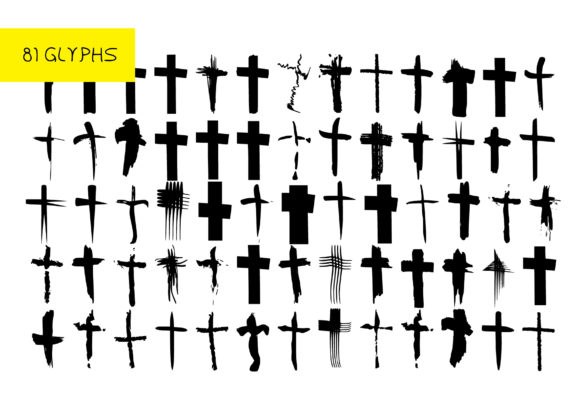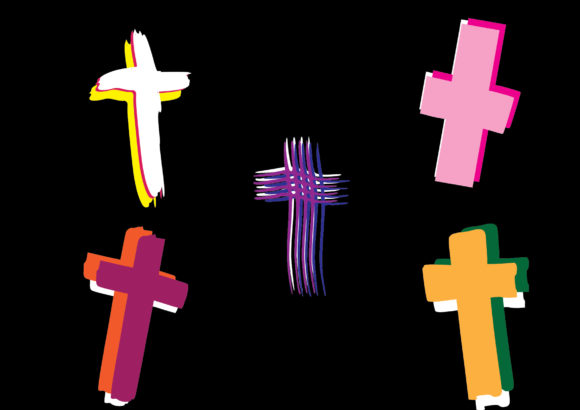
BM Graphics – Christian Crosses Font: A Stunning Collection of Dingbats for Designers and Crafters
Are you a designer or crafter looking for a unique and inspiring way to add a touch of faith and spirituality to your projects? Look no further than the BM Graphics – Christian Crosses Font, a stunning dingbats font featuring a vast collection of beautiful Christian crosses. With its wide range of designs, this font is sure to captivate and inspire you to create something truly special.
What is the BM Graphics – Christian Crosses Font?
The BM Graphics – Christian Crosses Font is a dingbats font that contains a vast array of Christian crosses, each one meticulously designed to showcase the beauty and diversity of this powerful symbol. From simple and elegant designs to intricate and ornate patterns, this font has something for everyone. Whether you’re working on a project for a church, a faith-based organization, or simply want to add a personal touch to your designs, this font is the perfect choice.
Key Features of the BM Graphics – Christian Crosses Font
- Large Collection of Crosses: With numerous designs to choose from, you’ll never run out of inspiration. Each cross is carefully crafted to ensure it looks great in any project.
- Dingbats Font: The Christian Crosses font is a dingbats font, making it easy to use and integrate into your designs. Simply type in the keyboard shortcuts to access the various crosses.
- High-Quality Designs: The font features high-quality designs that are crisp and clear, ensuring they look great in any resolution or size.
Who Can Benefit from the BM Graphics – Christian Crosses Font?
The BM Graphics – Christian Crosses Font is perfect for a wide range of designers and crafters, including:
- Graphic Designers: Add a touch of faith and spirituality to your designs with this unique and inspiring font.
- Crafters: Use the font to create handmade cards, scrapbook pages, and other paper crafts that showcase your faith.
- Churches and Faith-Based Organizations: Create powerful and meaningful designs for your church or organization with this stunning font.
- Stationery and Gift Designers: Add a personal touch to your stationery, gift tags, and other designs with this beautiful font.
Tips and Inspiration for Using the BM Graphics – Christian Crosses Font
Here are a few tips and inspiration ideas to get you started with the BM Graphics – Christian Crosses Font:
- Mix and Match: Experiment with different cross designs and combine them to create unique and eye-catching compositions.
- Use as a Focal Point: Use a bold and striking cross design as a focal point in your design, and then add supporting text and graphics.
- Add Texture and Patterns: Add texture and patterns to your design by using the crosses in combination with other graphics and textures.